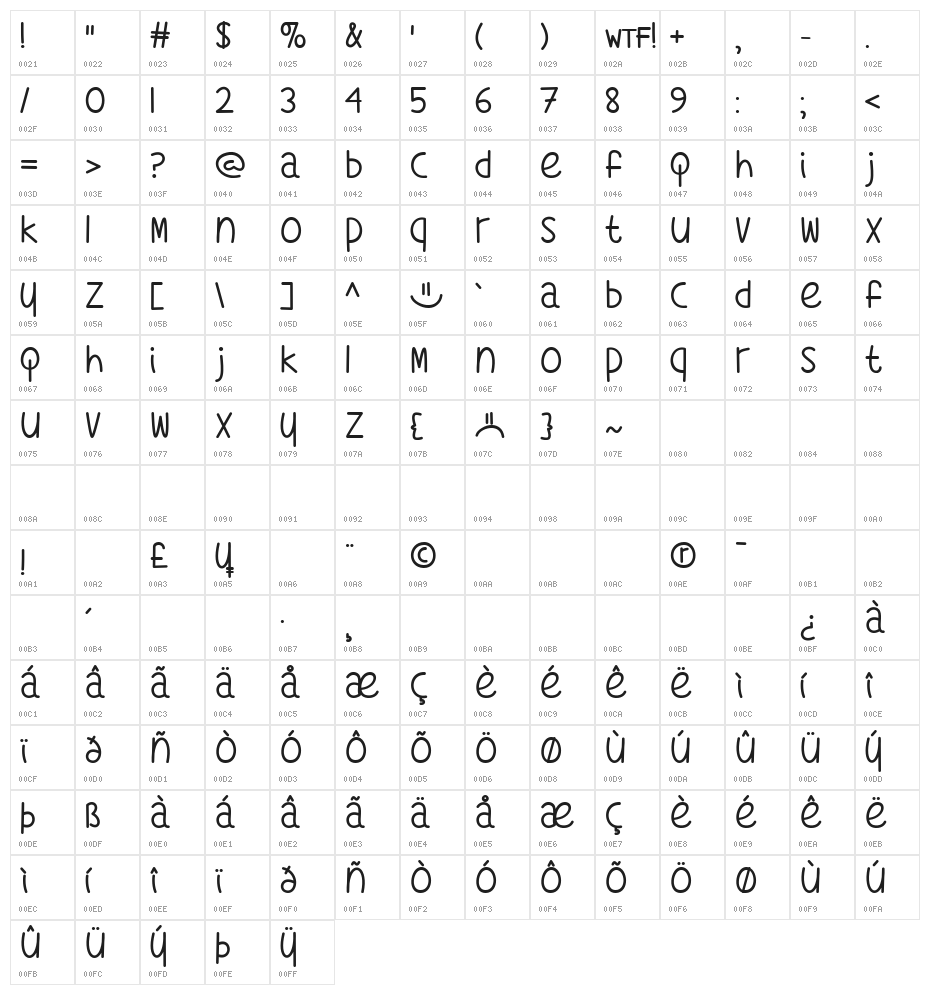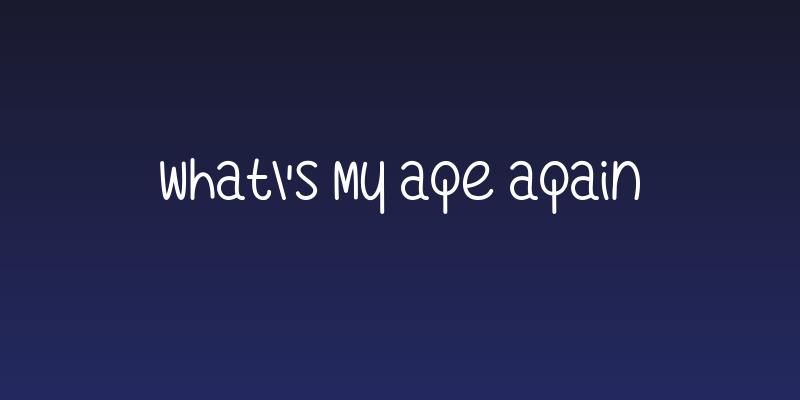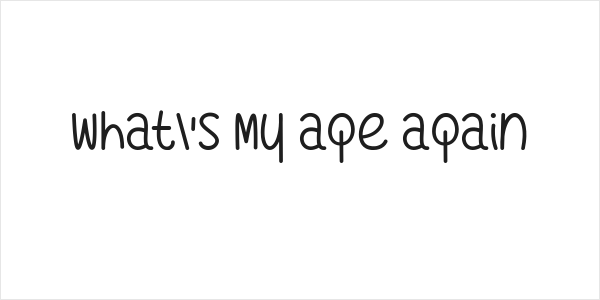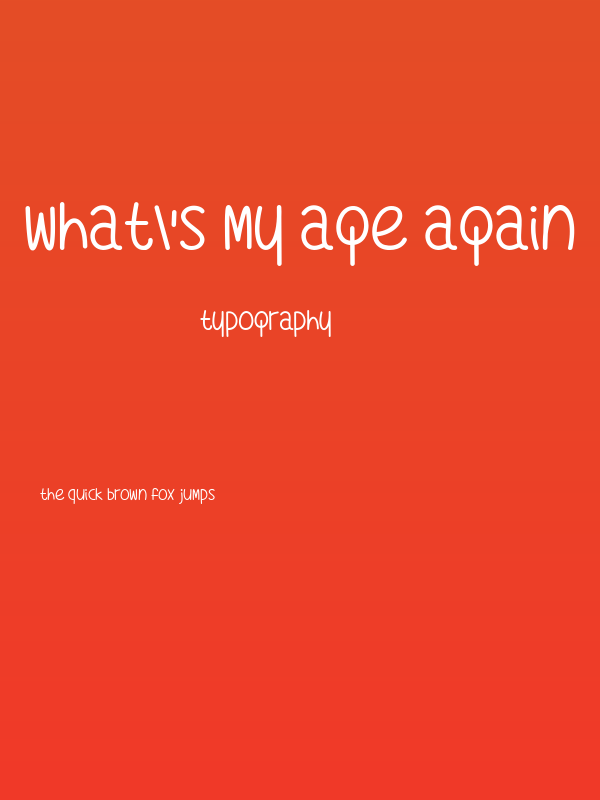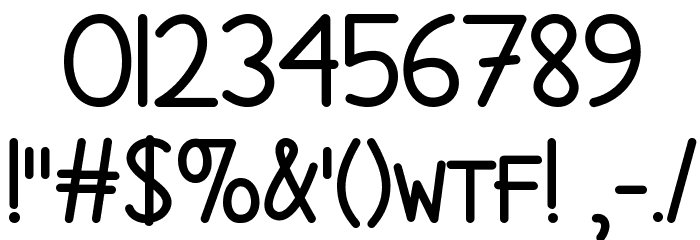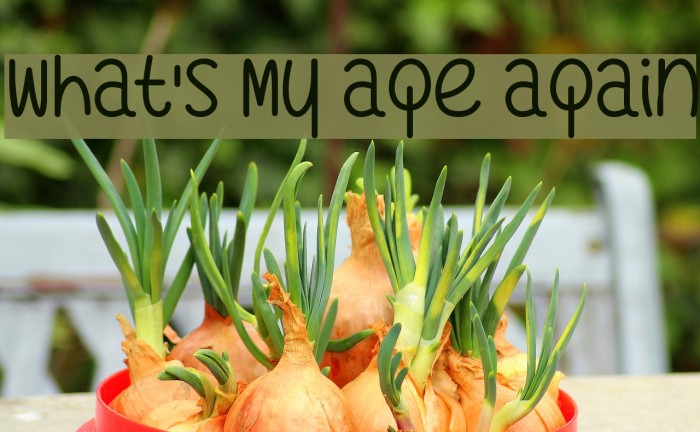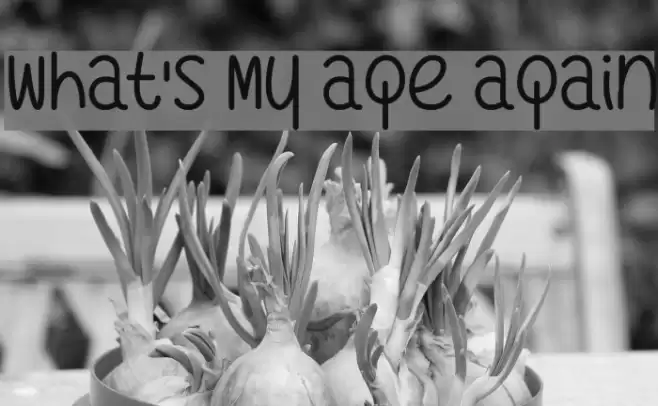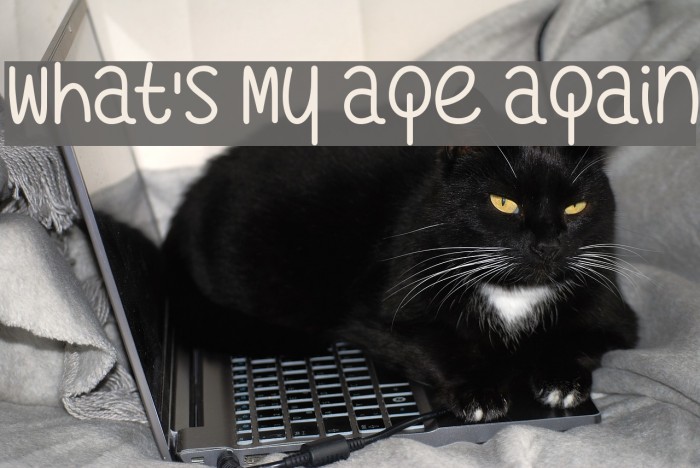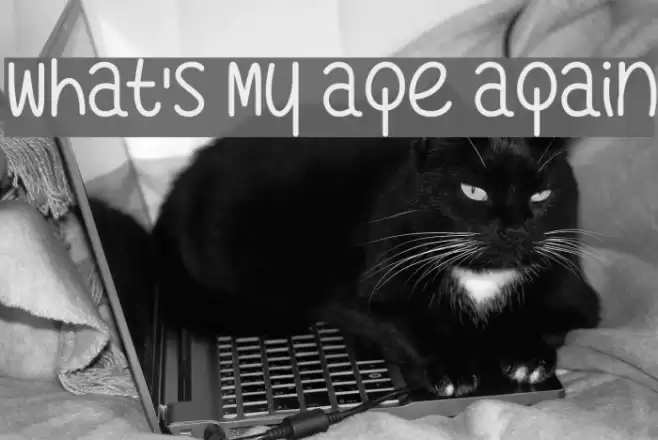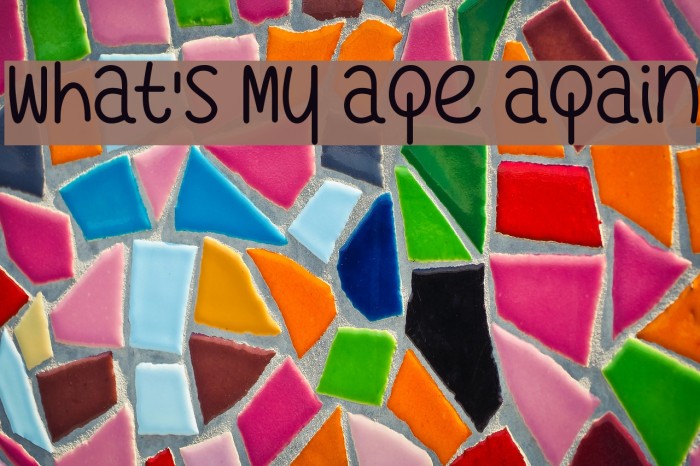
What's My Age Again Font
What's My Age Again Description
This playful and rounded font features a smooth, flowing design that exudes a sense of fun and approachability. The characters are evenly spaced with a consistent stroke width, giving it a clean and modern appearance. The rounded edges and lack of sharp angles contribute to its friendly and informal style, making it ideal for casual and creative projects. The font maintains a uniform height across both uppercase and lowercase letters, ensuring readability and balance. Its simplicity and charm make it versatile for various design needs.
| Use Case | Headlines, Logos, Informal Text |
| Proposed Projects | Ideal for children's books, playful branding, casual invitations, and creative social media graphics. |